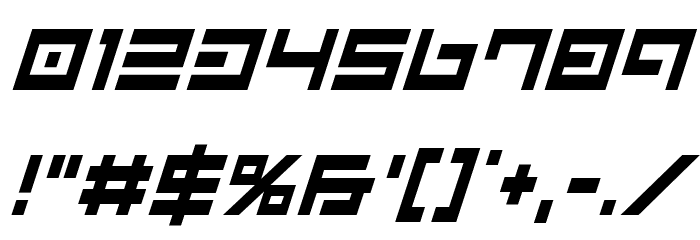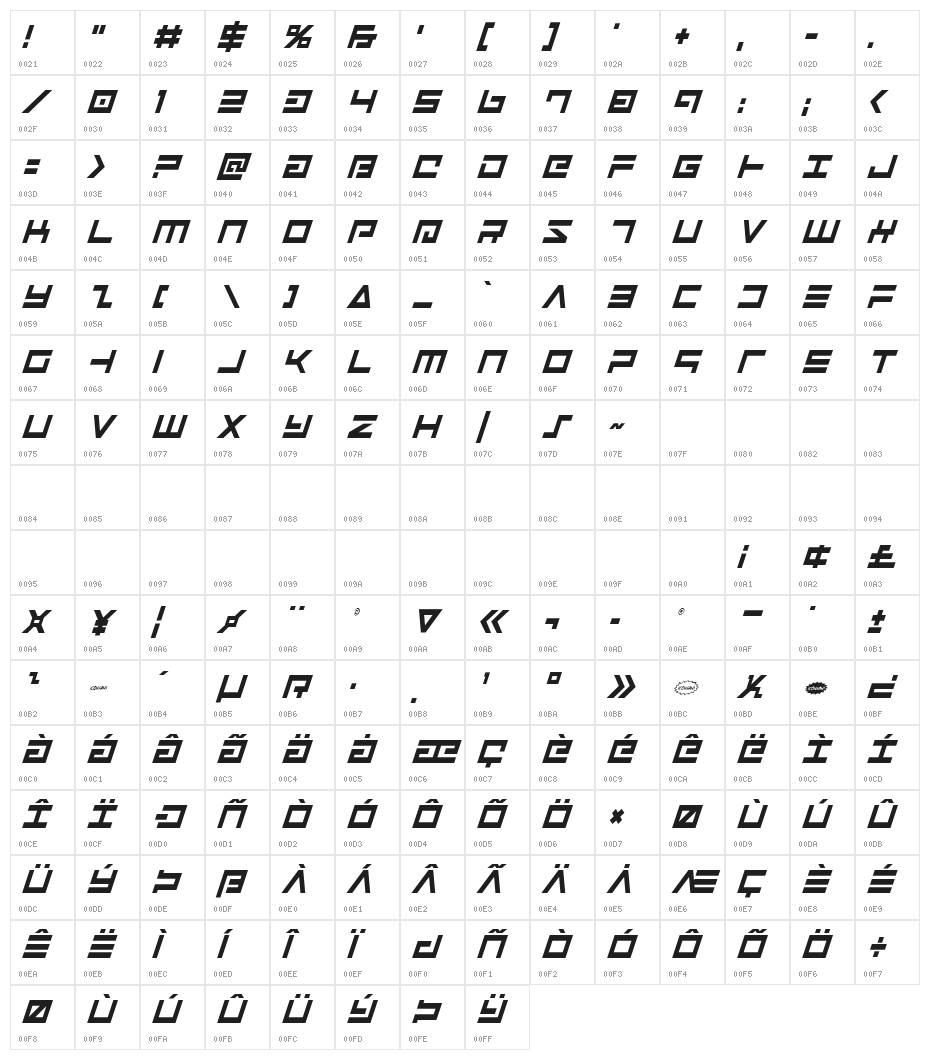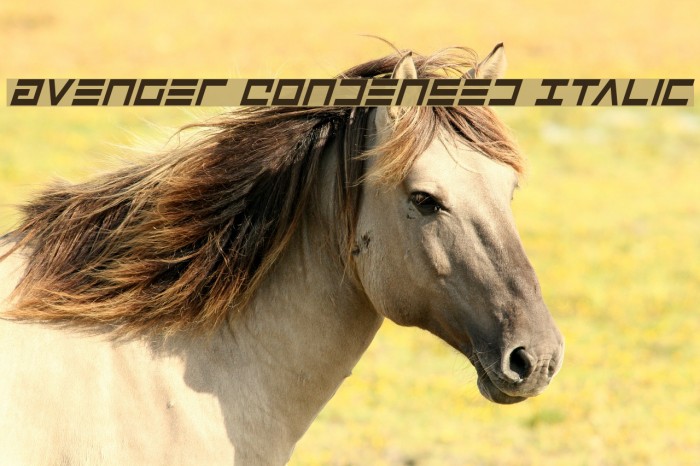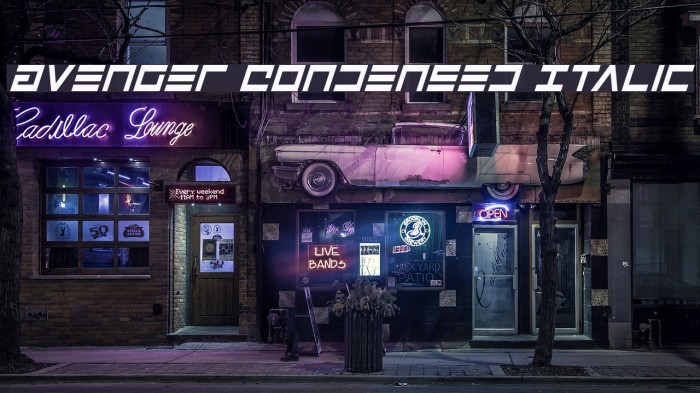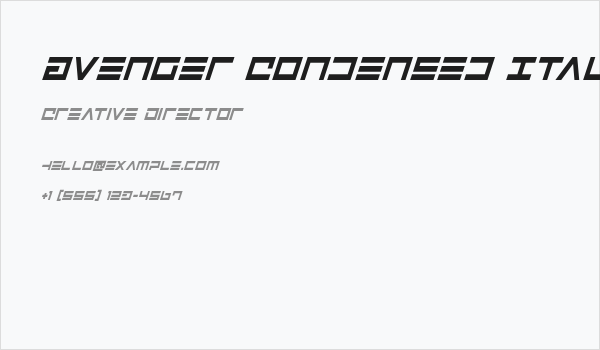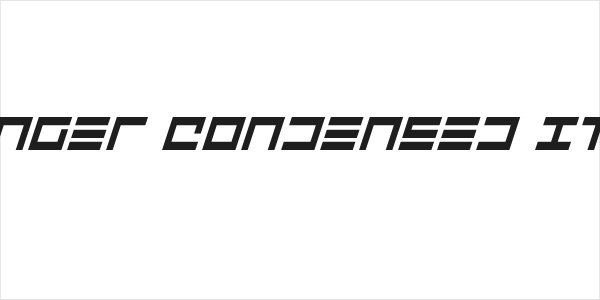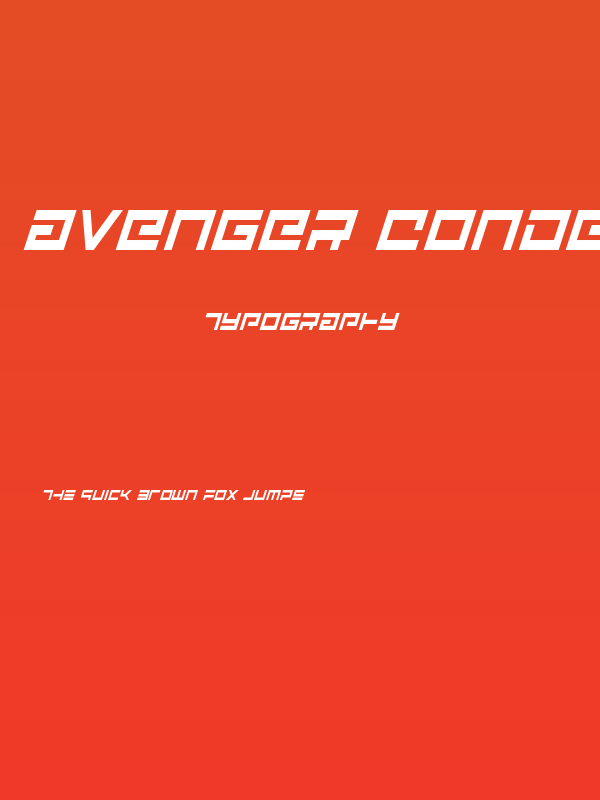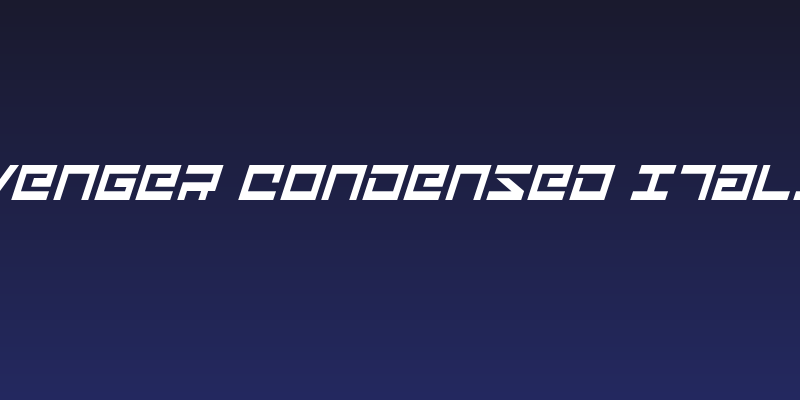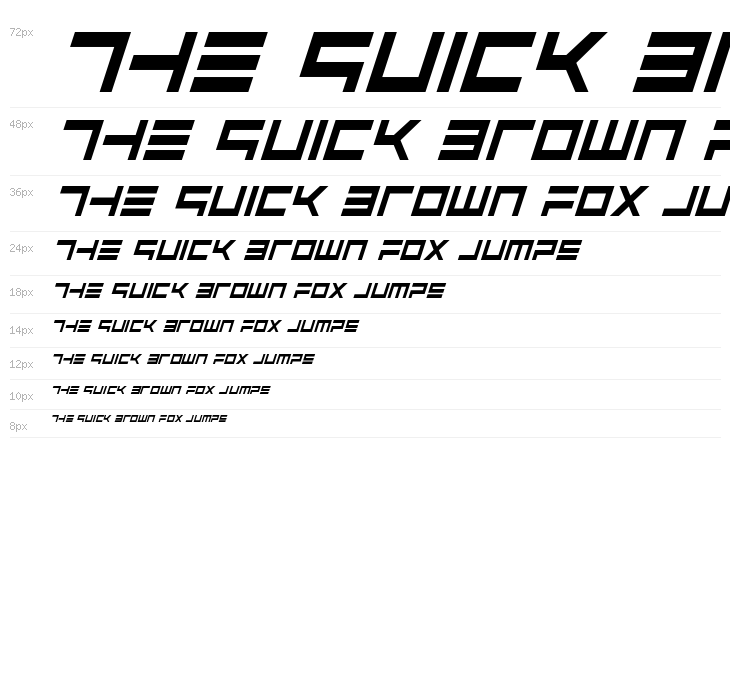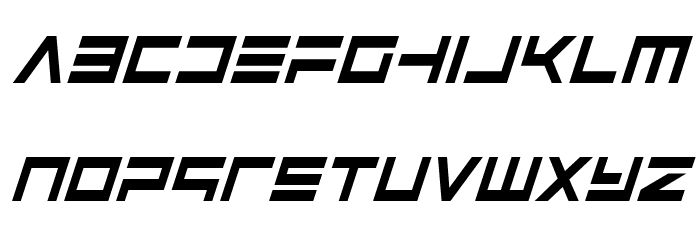
Avenger Condensed Italic Font
Avenger Condensed Italic Description
This font features a bold and dynamic style with a futuristic and angular design. The characters are slanted, giving an italicized appearance, and the overall look is condensed, making it suitable for space-saving applications. The sharp edges and geometric shapes convey a sense of speed and modernity. The uppercase and lowercase letters maintain a consistent style, with a uniform stroke width that enhances readability. The numerals and special characters are designed to match the bold and sleek aesthetic, ensuring a cohesive look across all text elements.
| Proposed Projects | Ideal for sci-fi themed projects, technology branding, video game titles, and dynamic posters. |